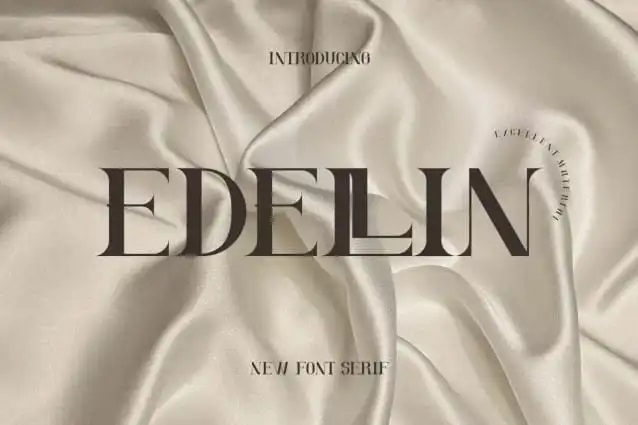
Edellin Font
Edellin Font is an elegant and contemporary aesthetic, perfect for branding and professional applications such as quotes, logos, posters, banners, letters, invitations, stationery etc. Toute the extravagance it can bring can be applied in various situations – use for quotes, logos, posters banners letters invitations stationery etc. It truly can make an exceptional statement!
Edellin Serif Font